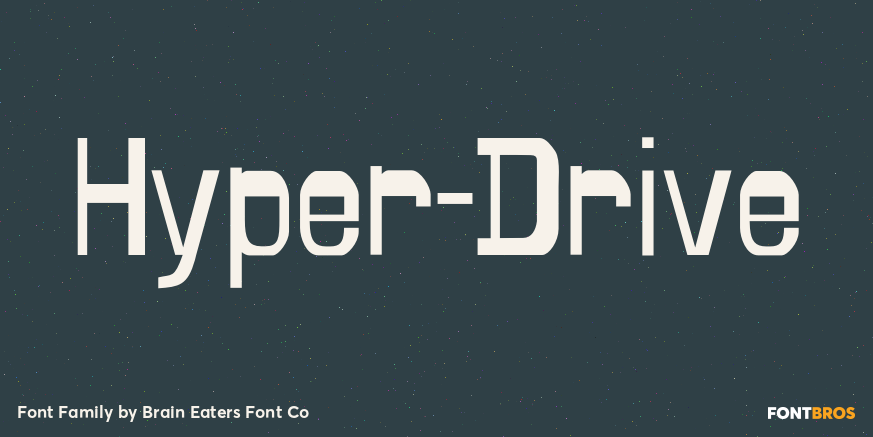
HomeFont BrosHyper-Drive Font Bros Hyper-Drive FacebookXPinterestWhatsApp 1 of 1 About Hyper-Drive Evidently inspired by mankinds enduring fascination with the automobile and Futurism! A wonderful design for labeling items that need a strong presence.  DOWNLOAD NOW People also explored Groovy Baby Font Delicate Font Dustie Font Genk Korengan Font Beaming Duo Font Nozomi Font YWFT Signature Super Wedding Monogram Font Vitalia Font 238 0 TagsHyper-Drive Font Previous articlePortlandNext articleHenHouse LEAVE A REPLY Cancel reply Comment: Please enter your comment! Name:* Please enter your name here Email:* You have entered an incorrect email address! Please enter your email address here Website: Save my name, email, and website in this browser for the next time I comment. Personal Use Free Zroest Personal Use Free Read more about this font Sweet Someday Personal Use Free Read more about this font Snaily Personal Use Free Read more about this font Einstaint Personal Use Free Read more about this font BLOG Free vs Paid Fonts: Why Investing in Premium Fonts Is Worth It Free vs Paid Fonts: Why Premium Fonts Are Worth It in 2025 The debate of free vs paid fonts continues in the design world. While... The 10 Best Handwriting Fonts to Add Personality to Your Designs Using Fonts in Digital Marketing: Tips to Strengthen Your Brand Identity Elegant Wedding Invitation Fonts – Handwritten & Script Fonts